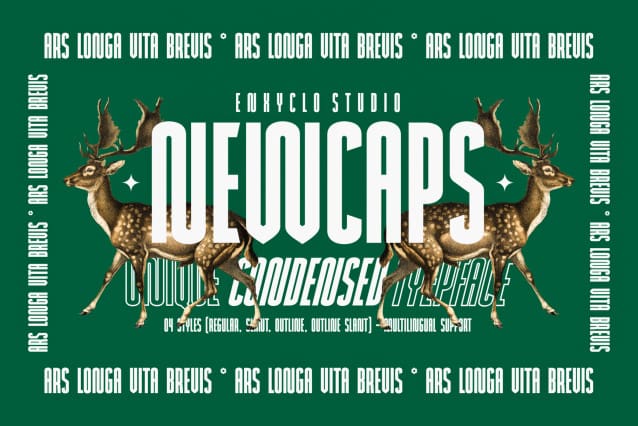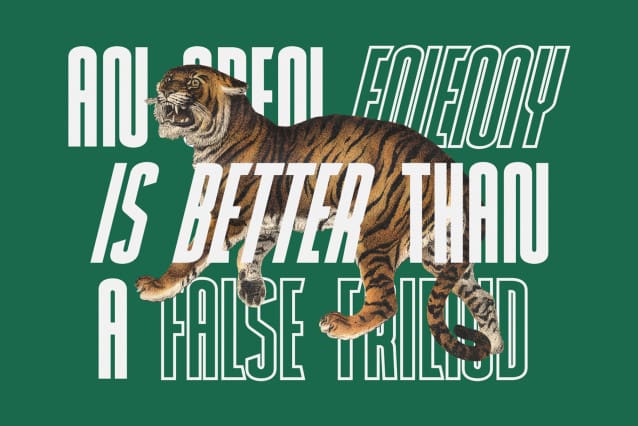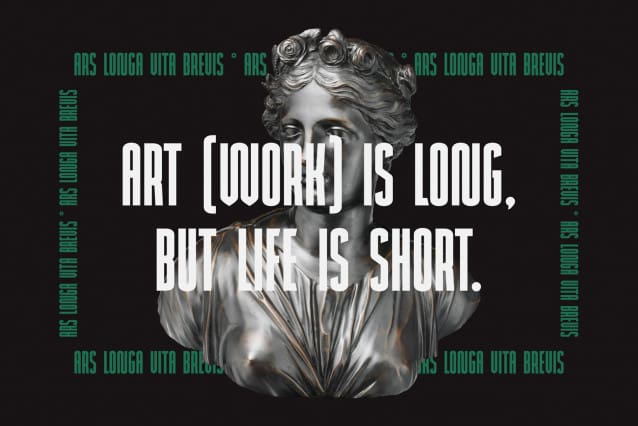
Newcaps Condensed Font
Newcaps Condensed Font is a bold condensed headline display font that features lowercase letters. With this bold typeface, you can be even more expressive in your design projects. It is perfect for headline, billboard, magazines, website, titles, poster, branding, and logos. With this beautiful font, absolutely you can make your project stand out from the rest. See the previews above to get some inspiration on how to use them.